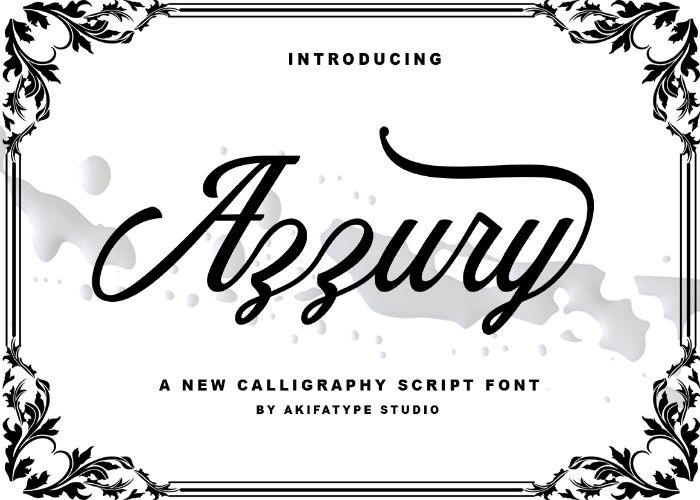
Bold, classic, and playfully vintage — meet Azzury, a free commercial script font designed for clarity and charm. Azzury features elegant calligraphic strokes, highly legible letterforms, and OpenType features including stylistic alternates, making it ideal for posters, t-shirts, logos, badges, headlines, and more.
Highlights
- Clean, legible script with a vintage feel
- OpenType features and stylistic alternates for flexible styling
- Suited for branding, apparel, print, and digital projects
Sneak peek
- Script glyph set with alternates
- OpenType feature support (ligatures, alternates, etc.)
- Ready for use in logos, badges, posters, t-shirts, and other creative projects